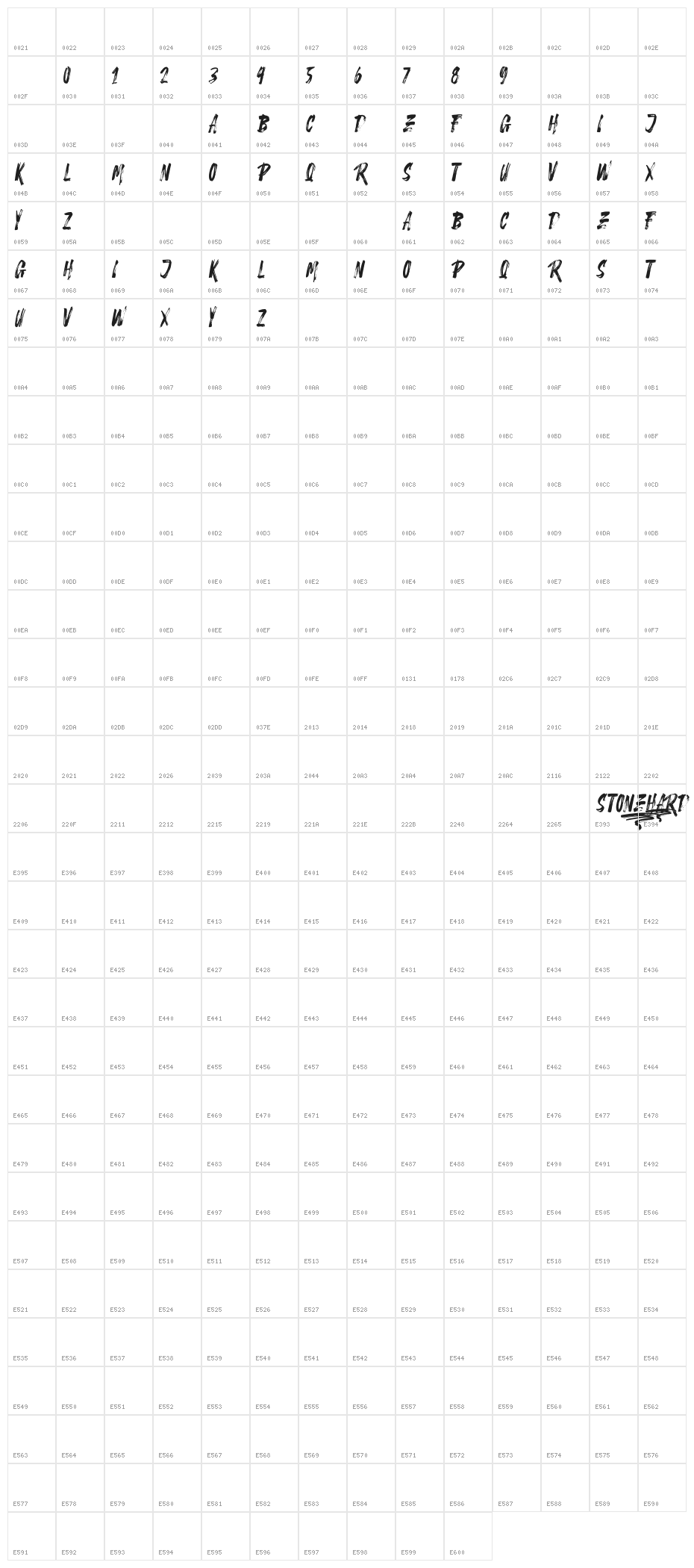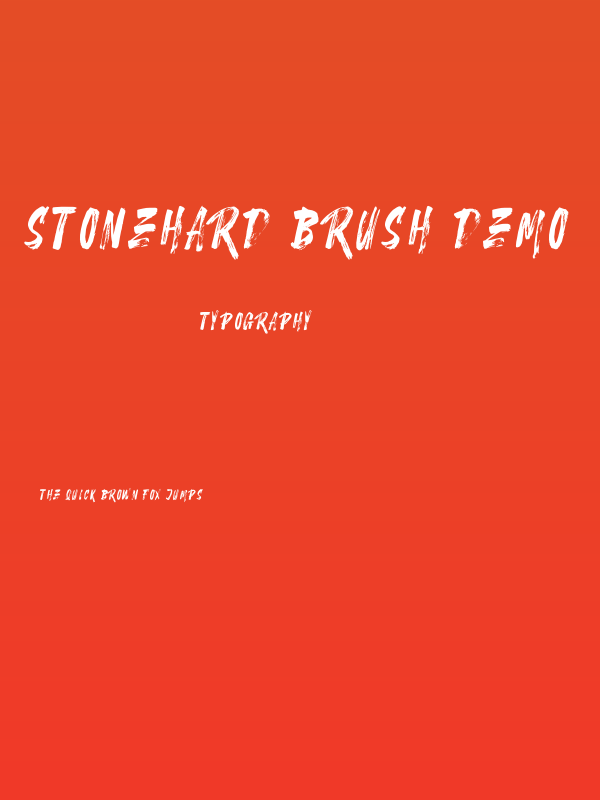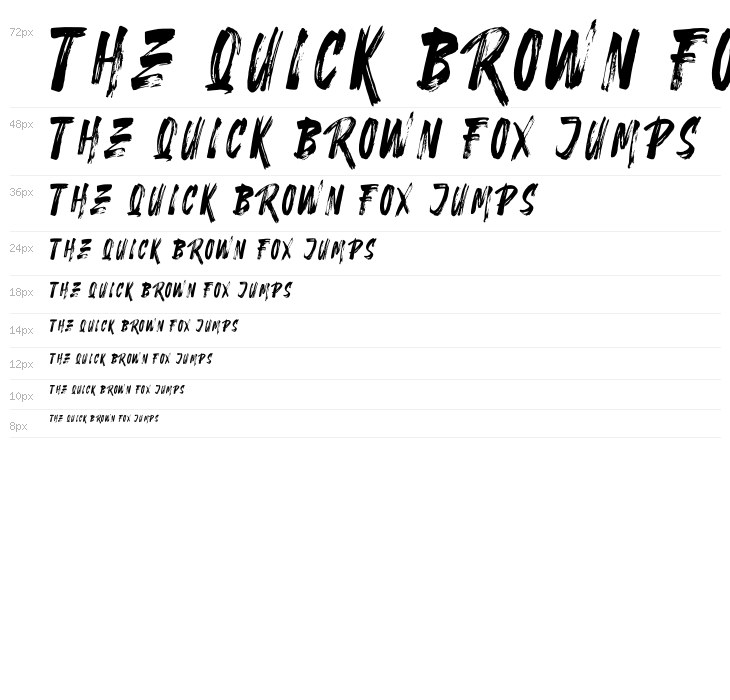
Stonehard Brush Demo Font
Stonehard Brush Demo Description
This font features a bold, expressive brush style that mimics the appearance of hand-painted strokes. Each character is crafted with a dynamic and energetic flair, showcasing irregular edges and varying thicknesses that add a raw, artistic touch. The uppercase and lowercase letters maintain a consistent brush texture, creating a cohesive look throughout the alphabet. Numbers and special characters are equally expressive, ensuring a uniform style across all elements. This font is ideal for projects that require a bold, artistic statement, offering a sense of movement and creativity.
| Proposed Projects | Ideal for posters, branding, album covers, and any design needing an artistic flair. |